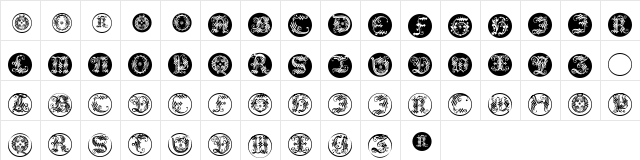
OrnamentalInitialButtons Regular
Design Context for OrnamentalInitialButtons Typeface
OrnamentalInitialButtons is built around its visual character rather than neutral utility — its distinctive forms are designed to make an impression at display sizes.
Font Pairing: Pair with a clean neutral sans-serif for body copy to let OrnamentalInitialButtons's character lead without overwhelming the composition.
Pro Tip: Use OrnamentalInitialButtons exclusively at display sizes — it was designed to be seen, not read at length. Let a neutral companion handle body copy.